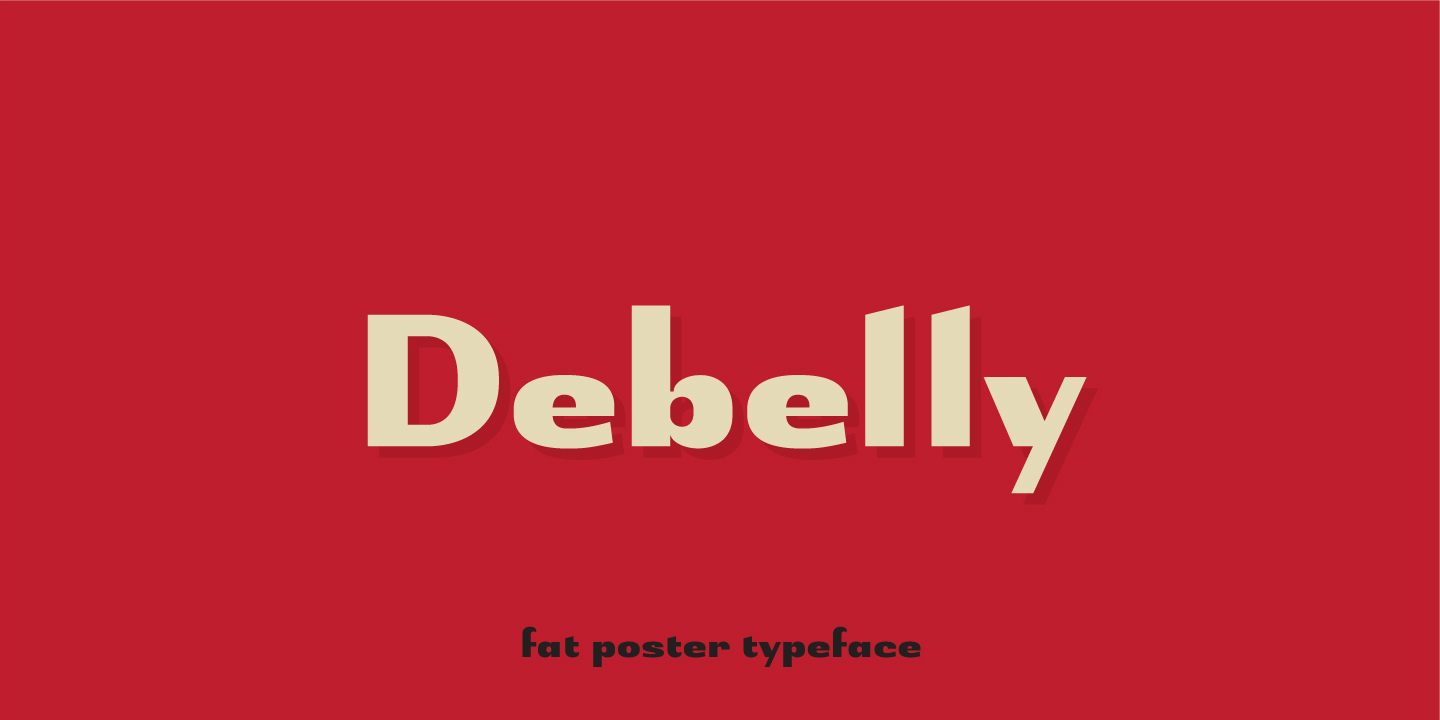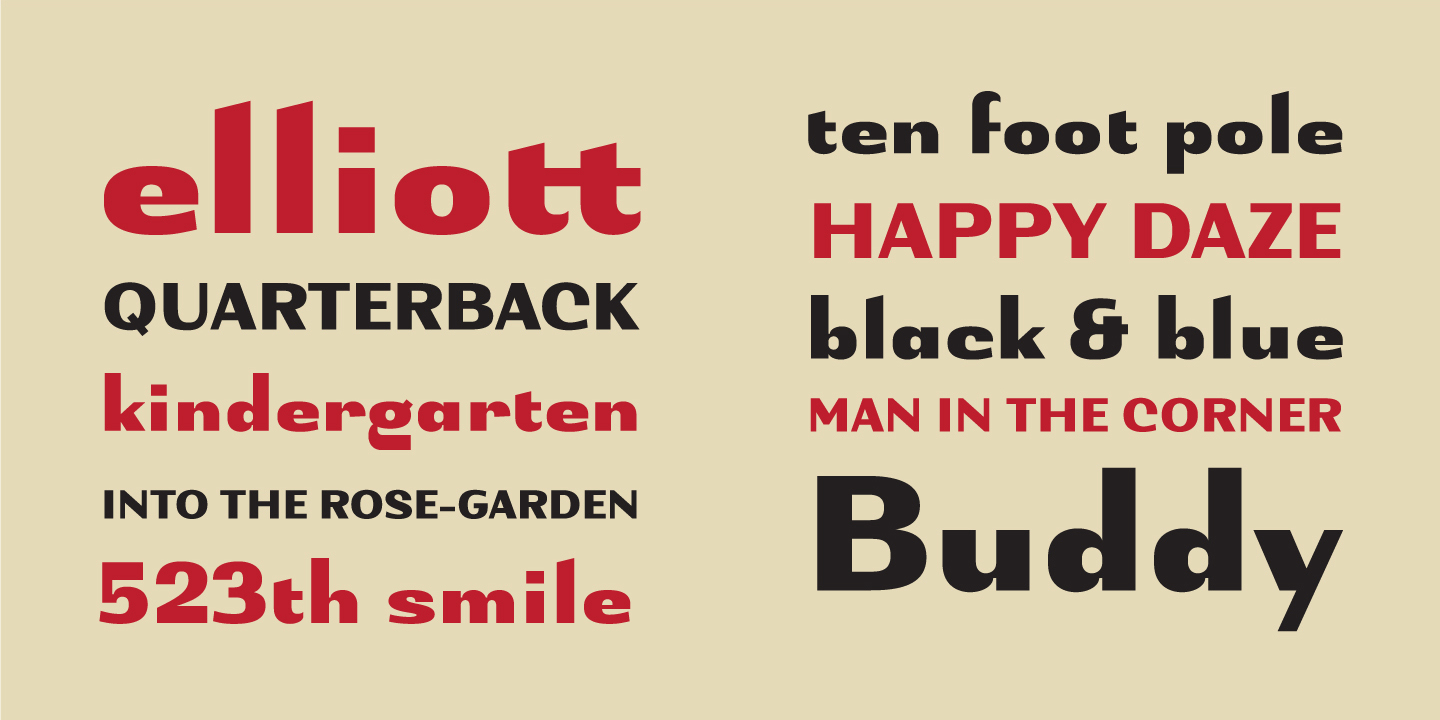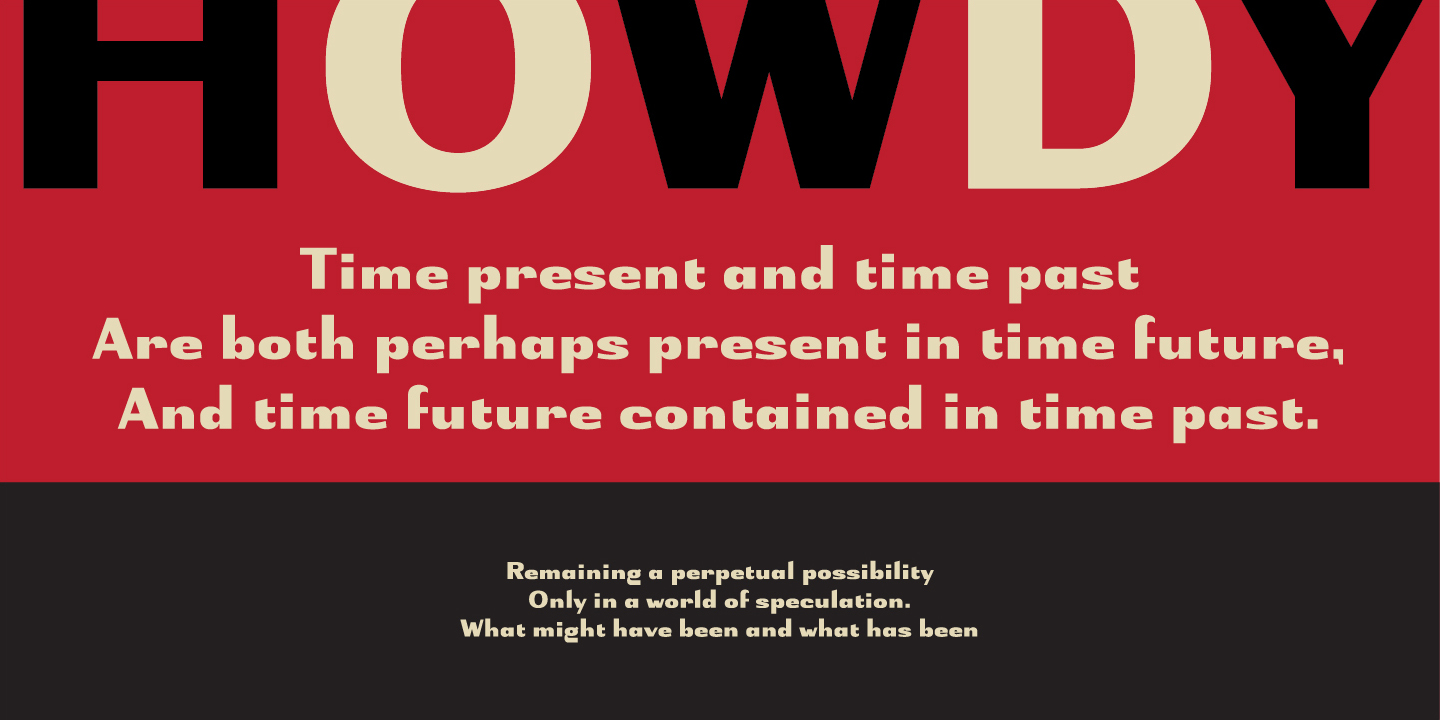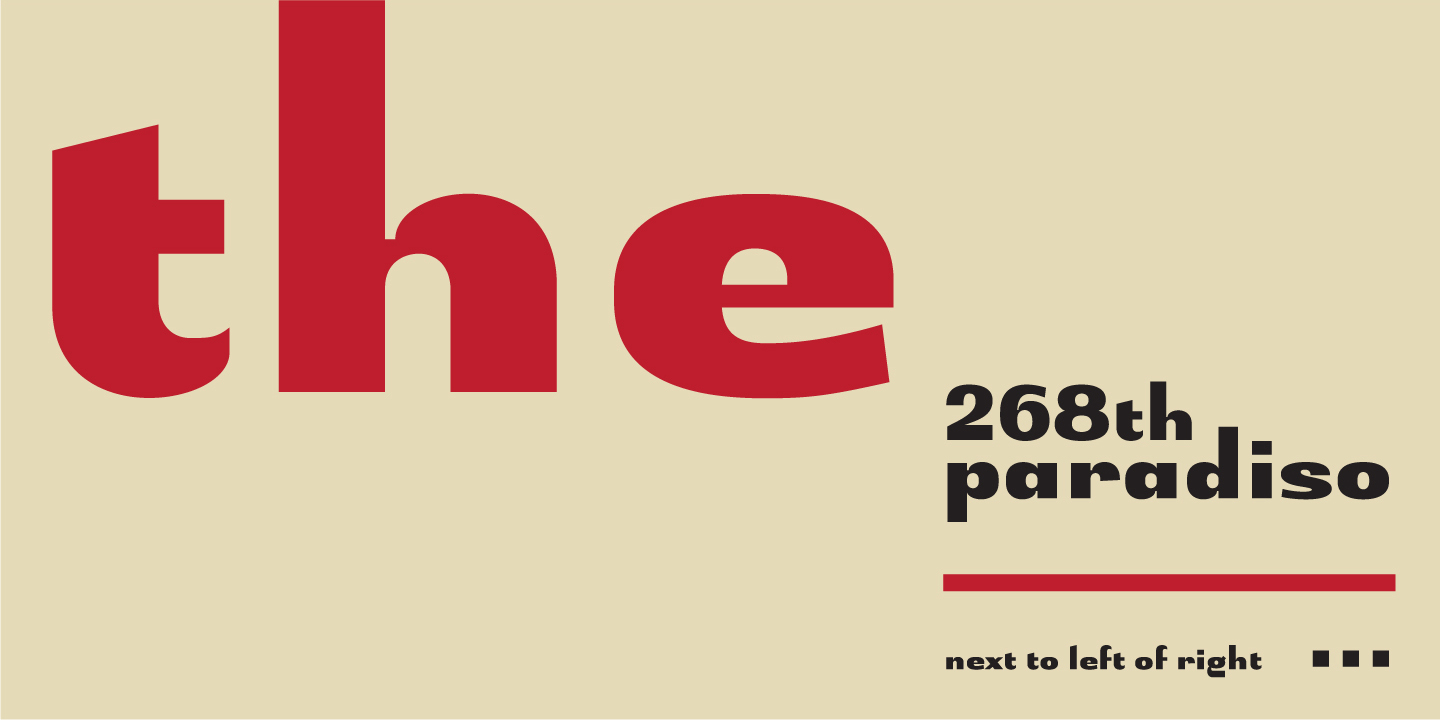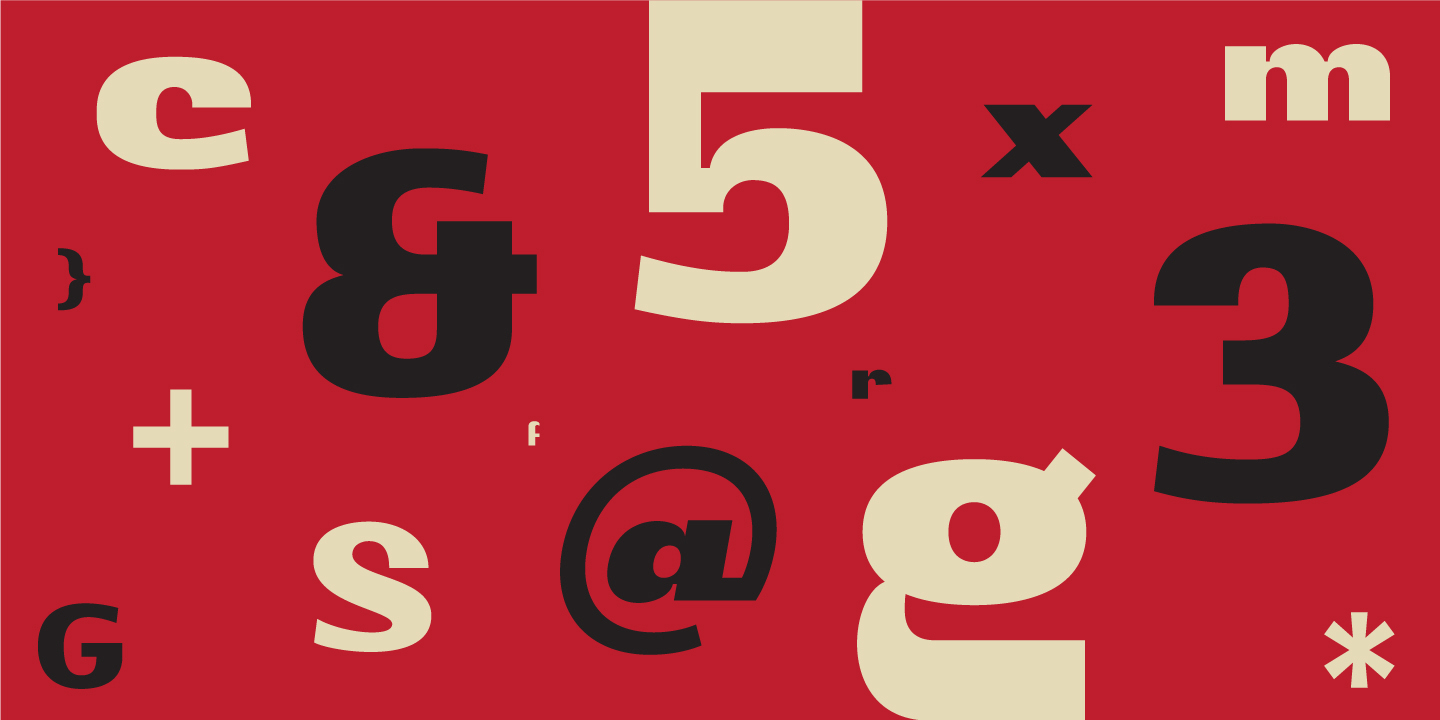
Debelly is catchy fat typeface, with lovely geometric shapes. Inspired with contrast strokes, with square joins, Debelly gives an impression of retro style combined with contemporary trends. It is designed specially for packaging, posters, logotypes or headlines, even it can be pretty handfull in smaller sizes. Contains 375 glyphs.